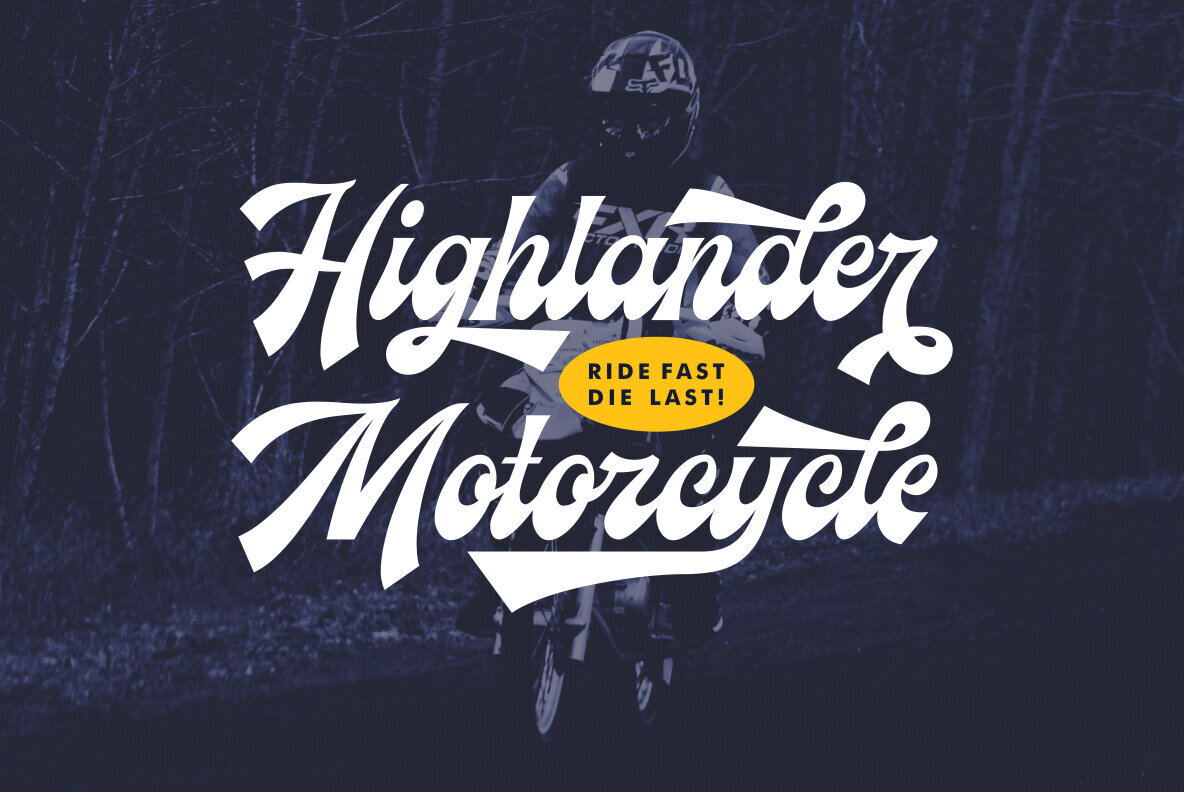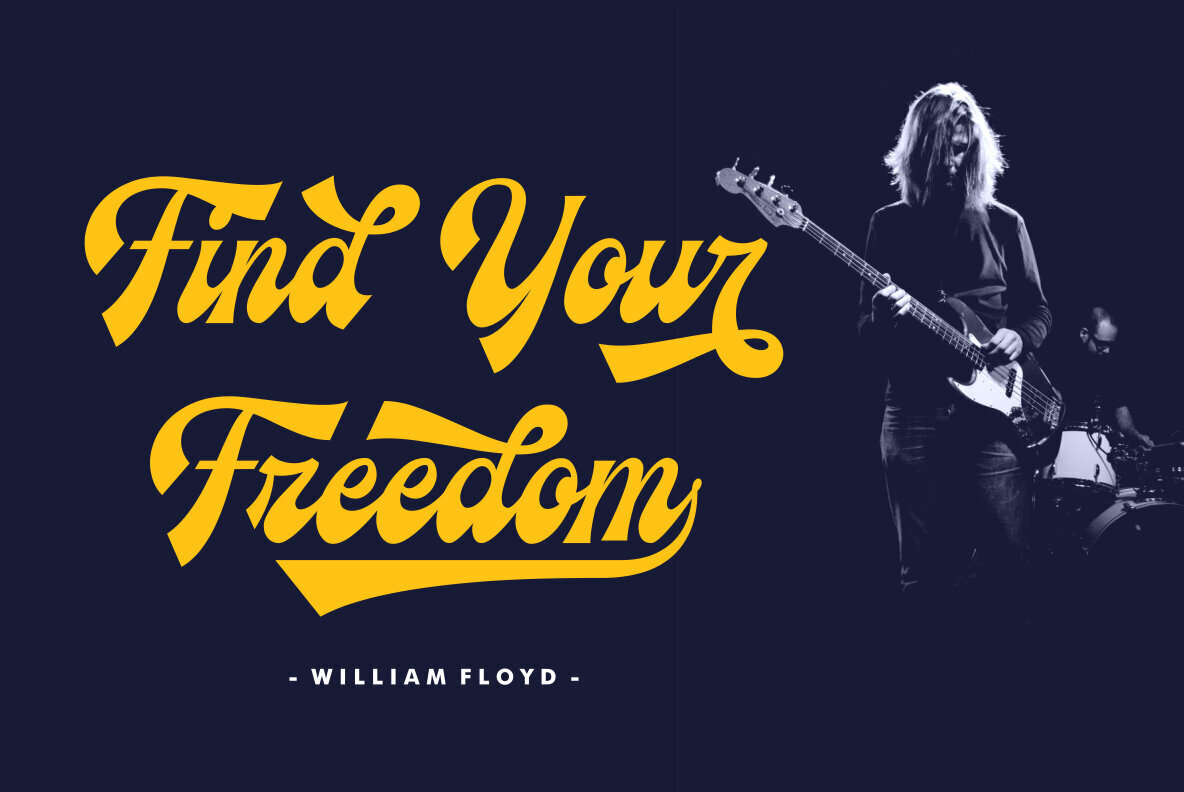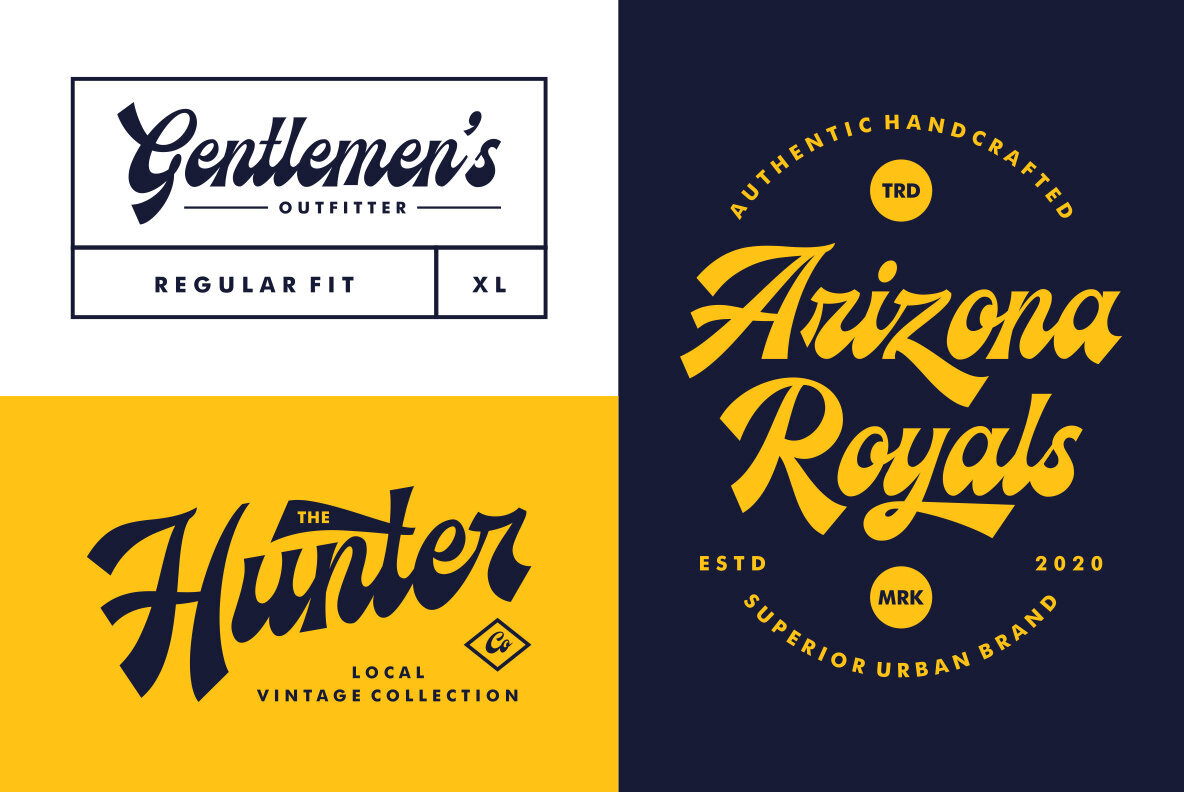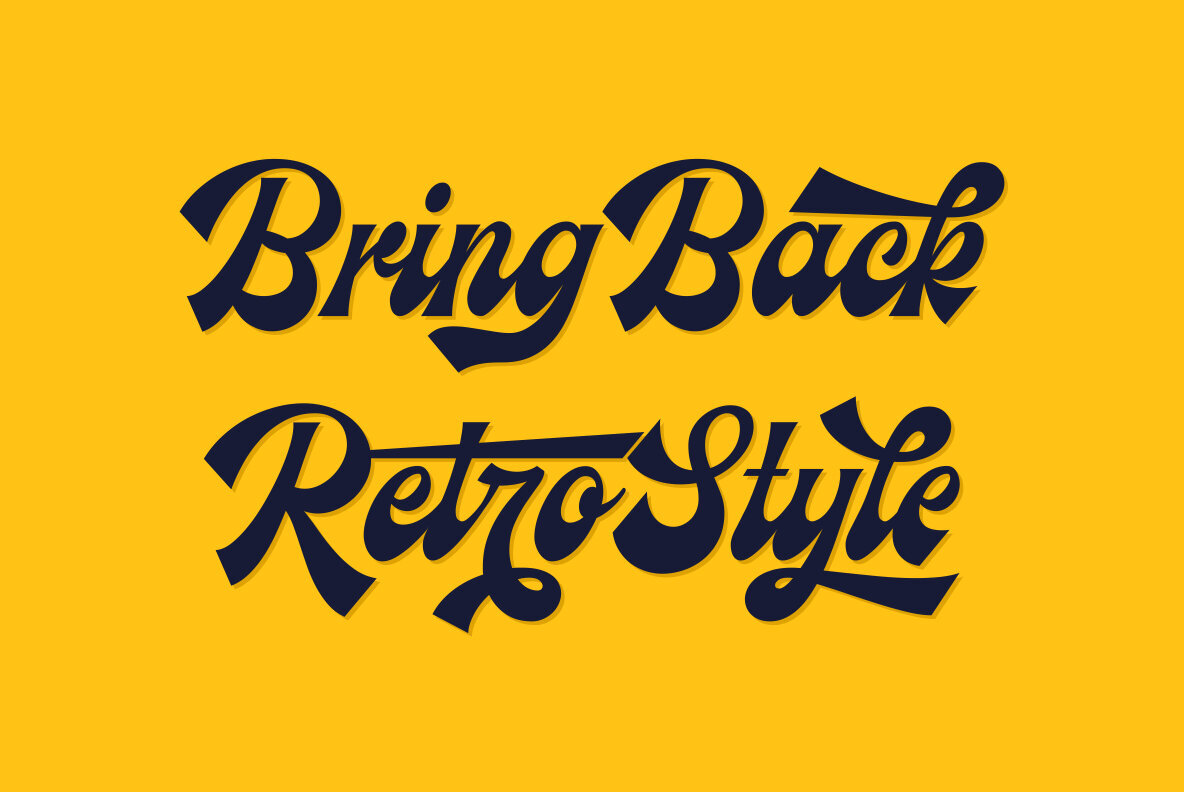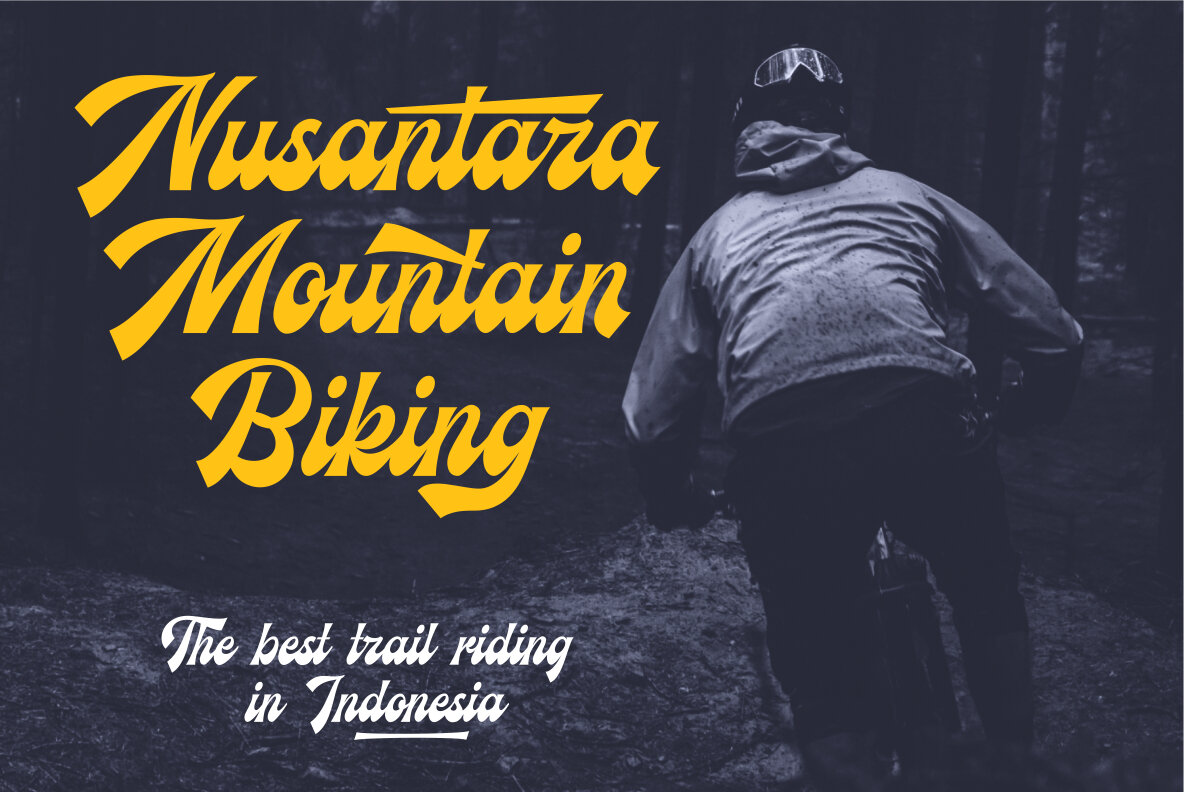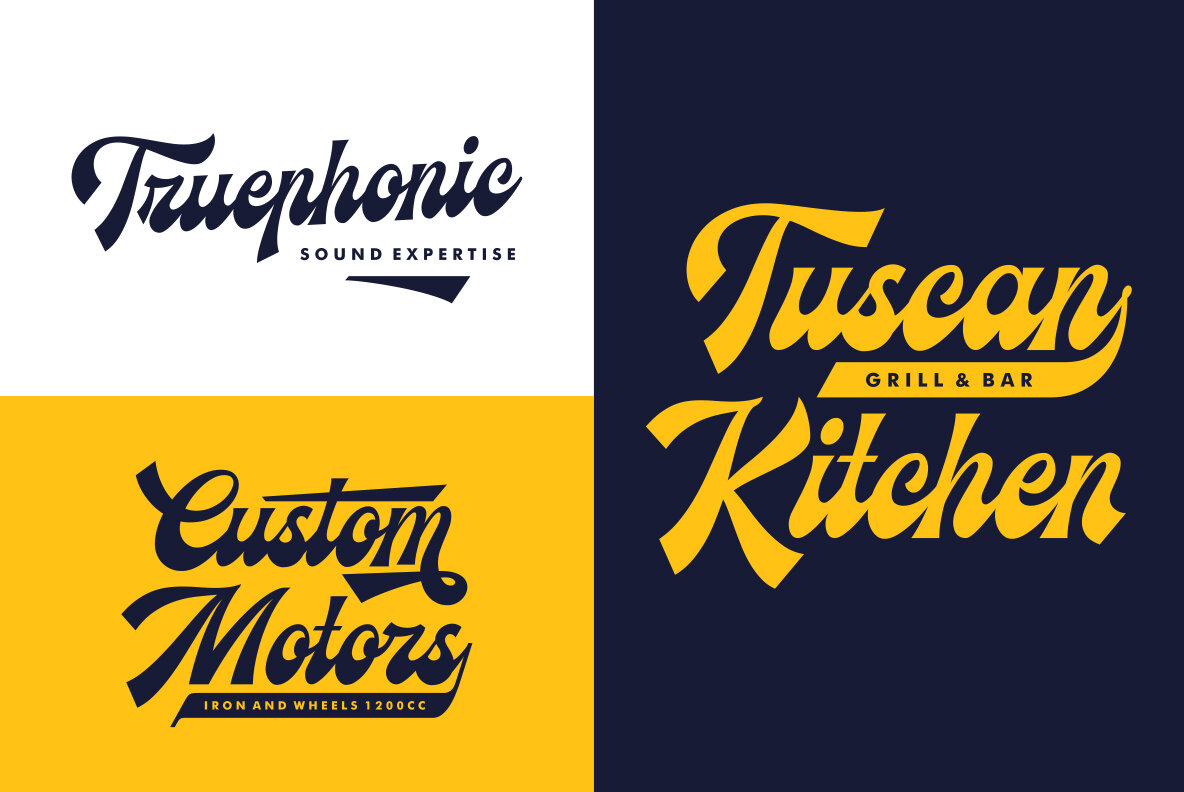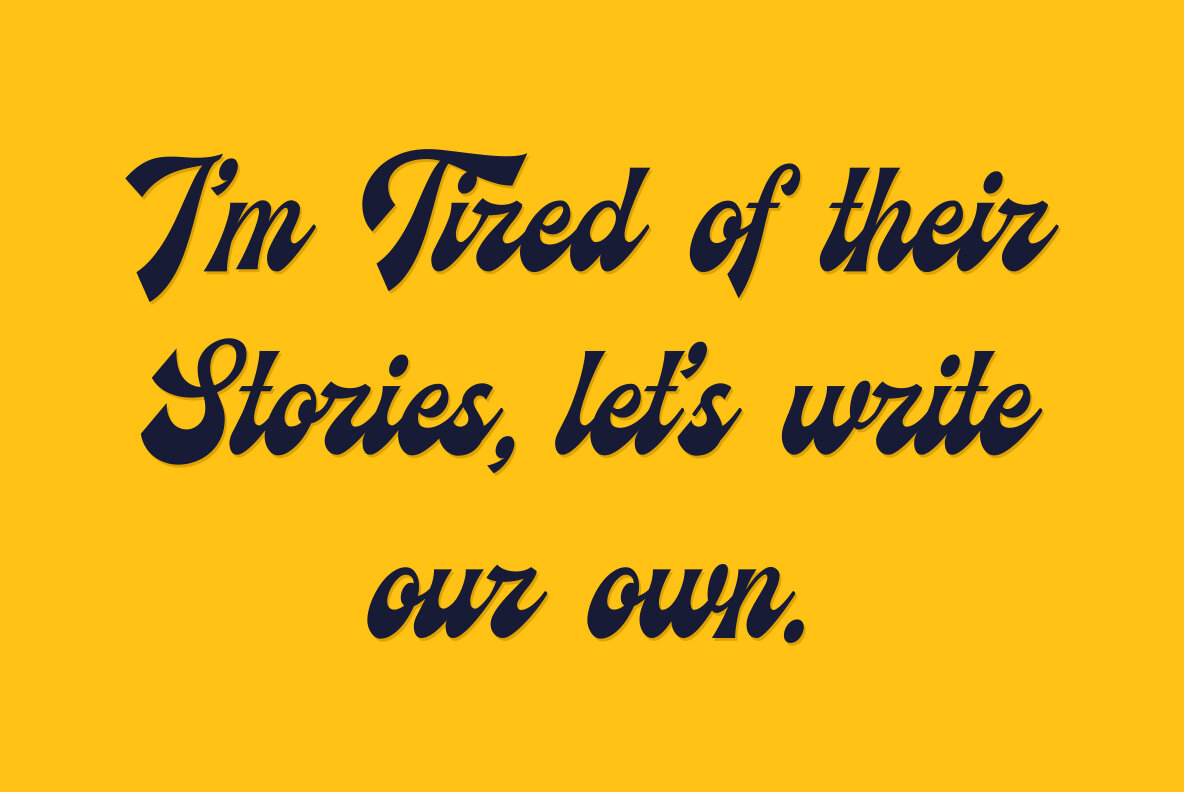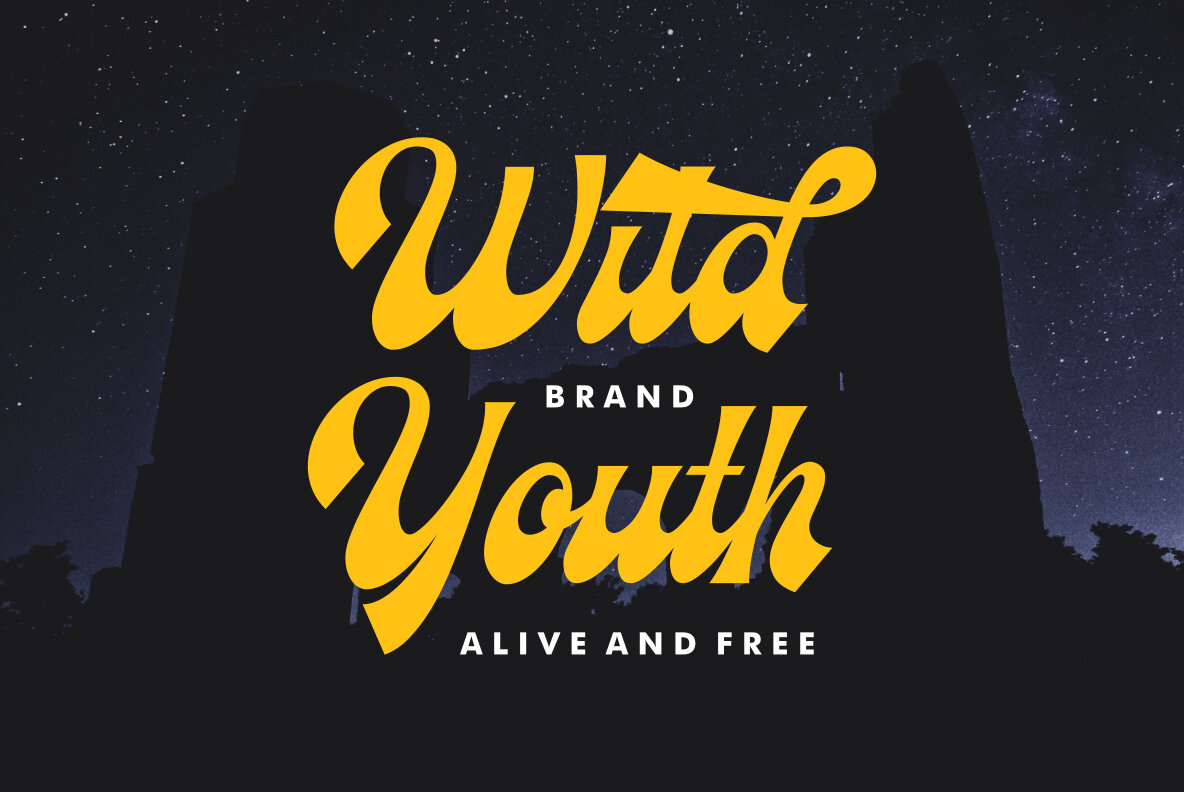
Ecentric Font
Ecentric
Modular and multifunctional, this font can be mixed with any other without losing the retro style. Use it for headlines or short copy to add an old-fashioned touch in your design projects such as merchandise items branding logos etc., enjoy!